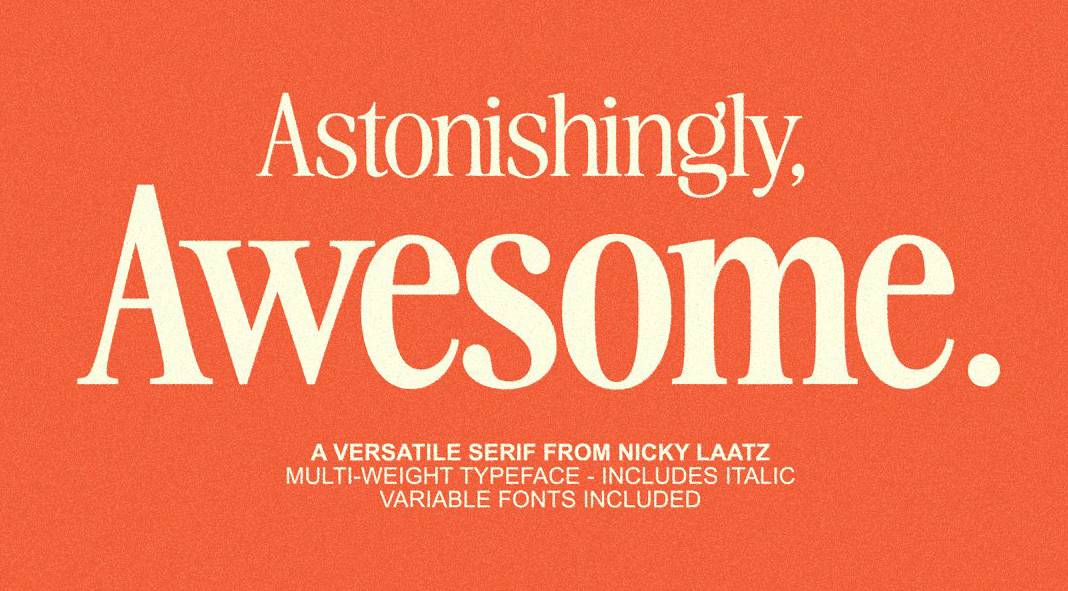
The Awesome Serif is here, another trending typeface by font designer Nicky Laatz.
With 30 different fonts, the Awesome Serif font family is perfect for any project you have in mind. The two variable fonts included make it even easier to find the right look for your text. From sophisticated and sleek to bold and retro, this font family has it all covered.
Serif fonts are currently in style, making them the perfect choice for any project. With their classic look, they can give your text a sophisticated or retro feel, depending on the font you choose. With the Awesome Serif font family, you can download a particularly beautiful representative of this genus.